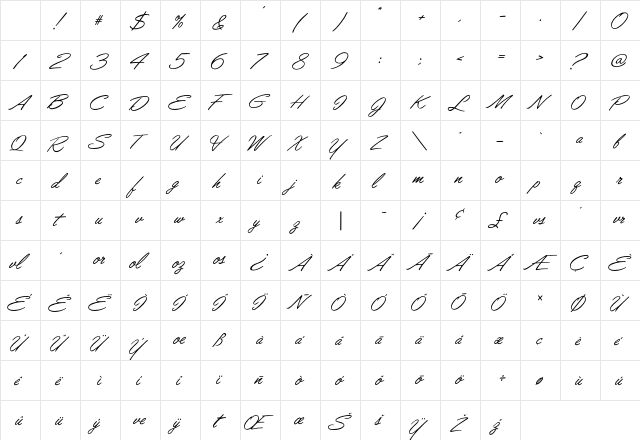
Complete Lisbon Script Regular glyph index. Displaying only characters natively supported by Lisbon Script Regular font.
Lisbon Script flows with the natural rhythm of handwritten lettering, making it ideal for designs that call for warmth and personal expression.
Font Pairing: Combine Lisbon Script with a simple geometric sans for maximum contrast - the tension between flowing curves and clean structure is a classic typographic pairing.
Pro Tip: Use Lisbon Script for short runs of text - names, titles, or taglines. Extended body copy in script faces tires the eye quickly.